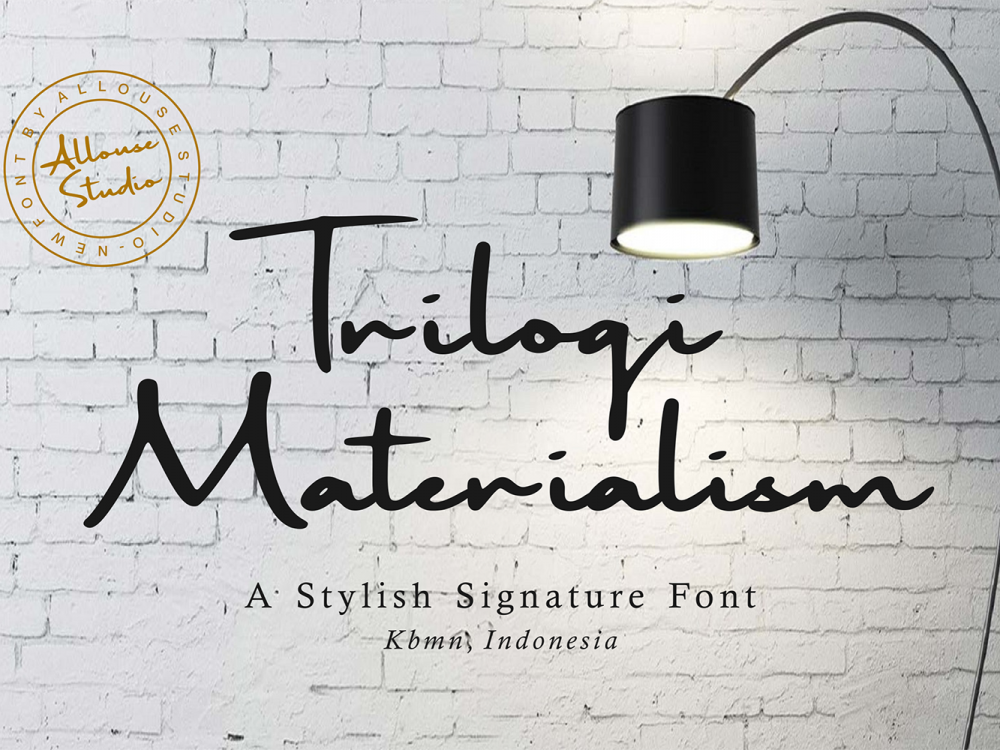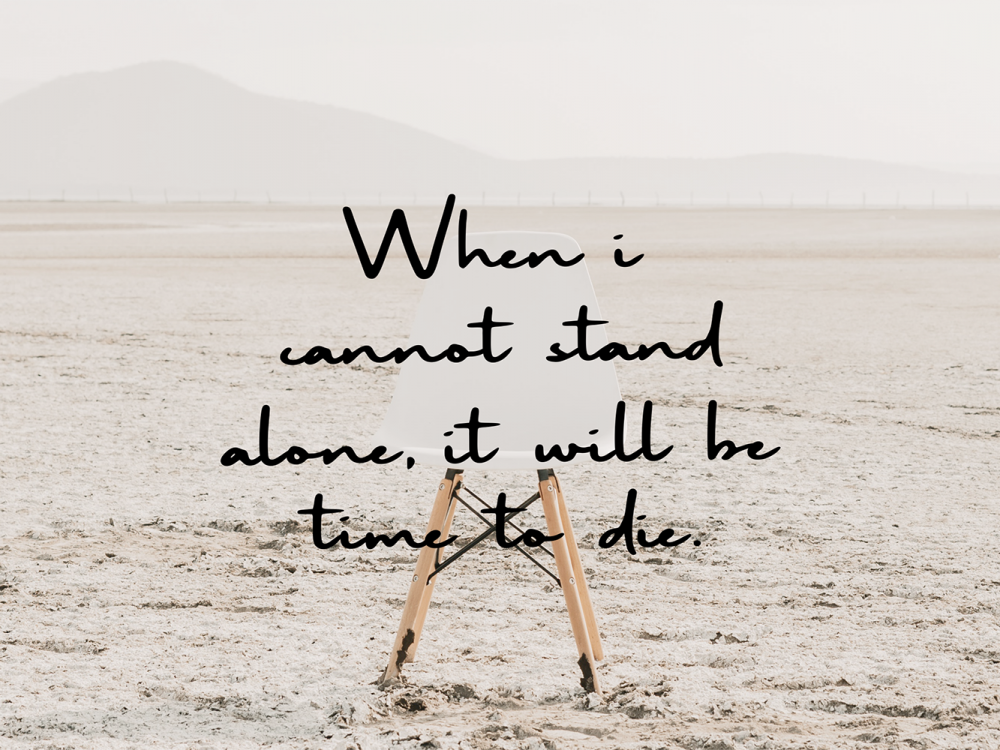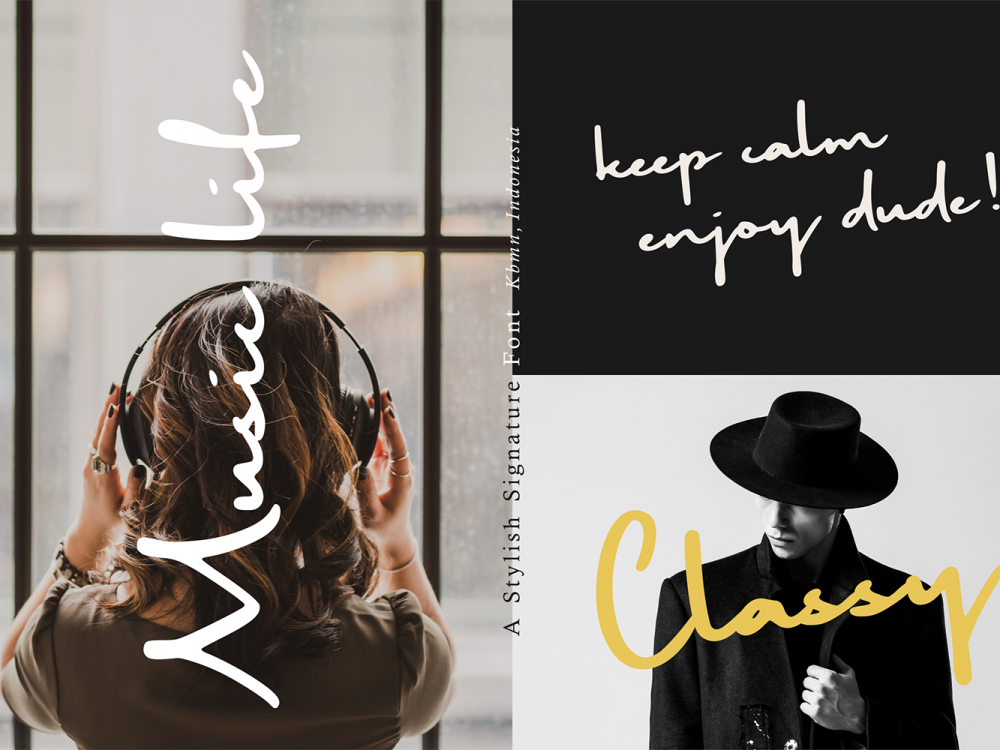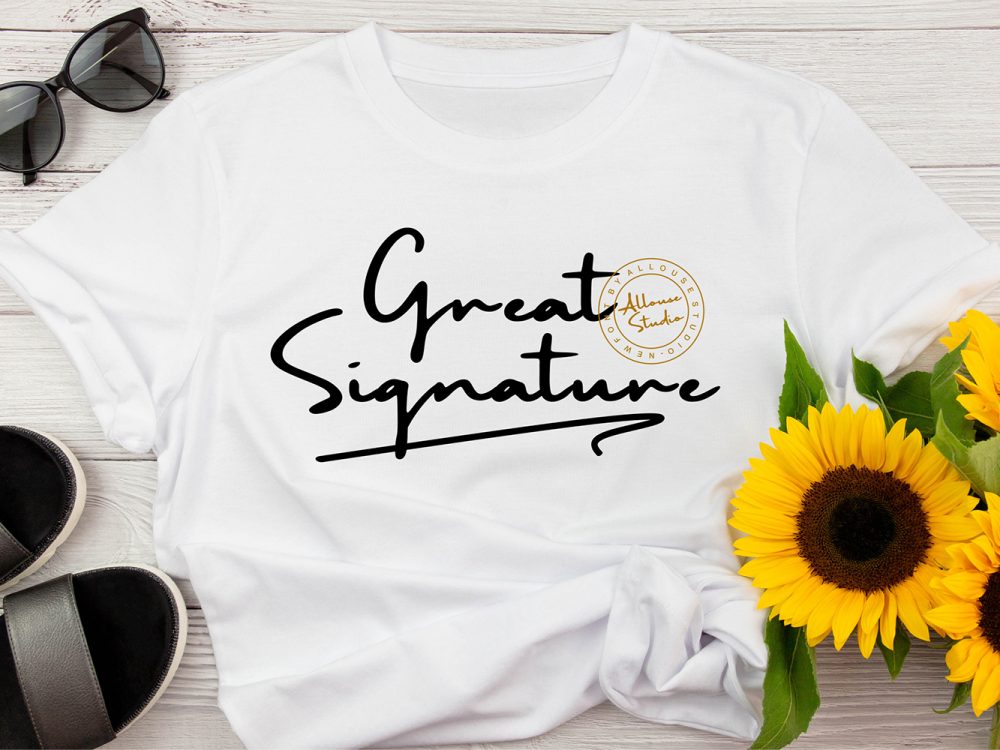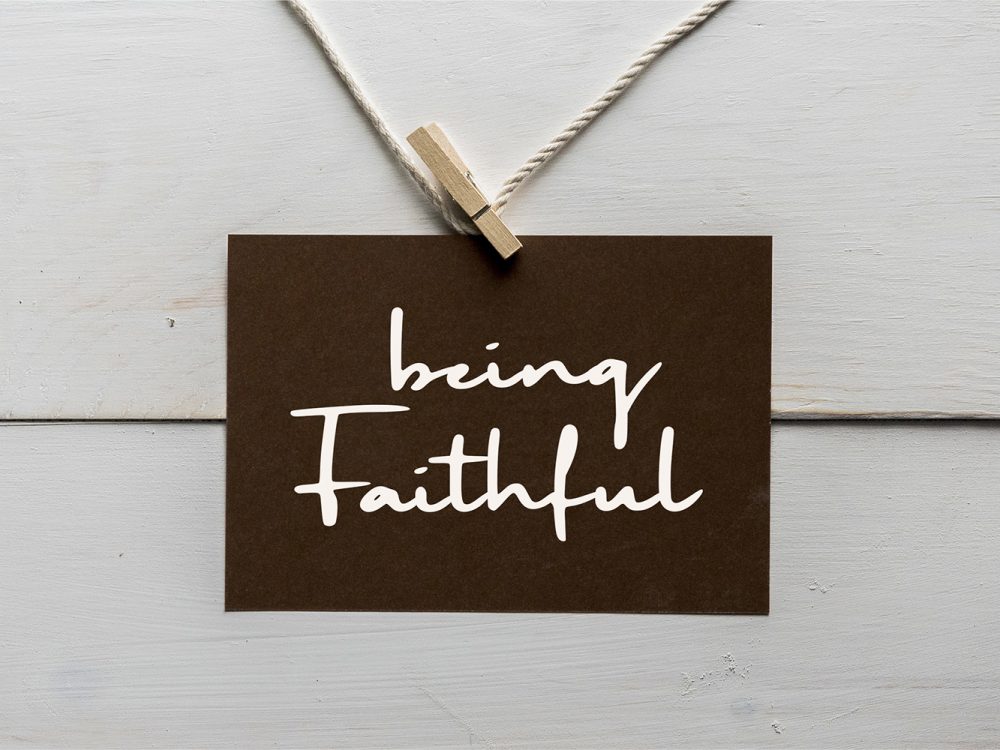
Trilogi Materialism Free Font
Trilogi Materialism Free Font is a beautiful handwritten font that simulates detailed brush writing and is very suitable for creating various design projects that require a scripted font. These can be posters, invitations, cards, branding, flyer prints, etc. If you wish to access more features and use them for commercial work please buy the full version.